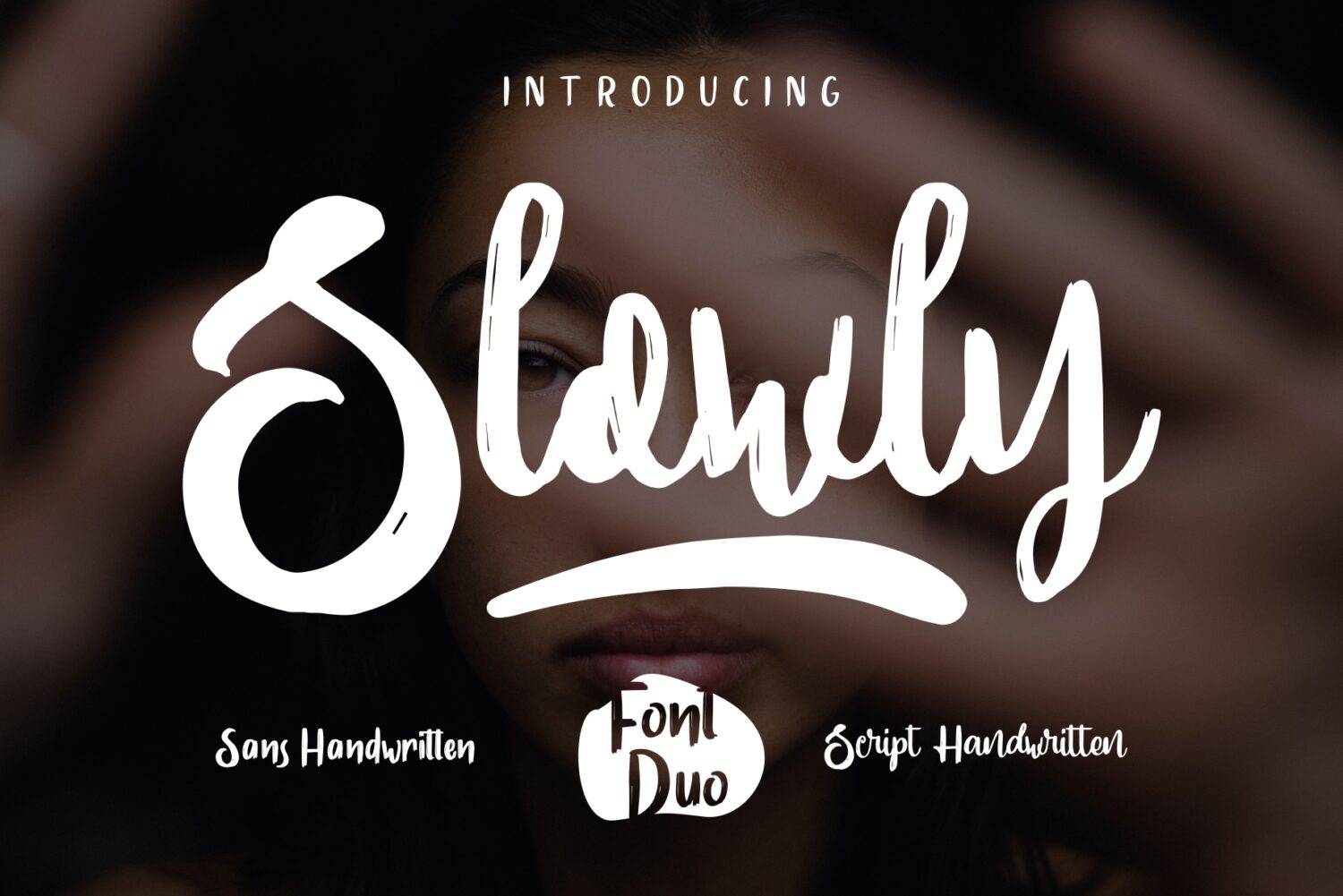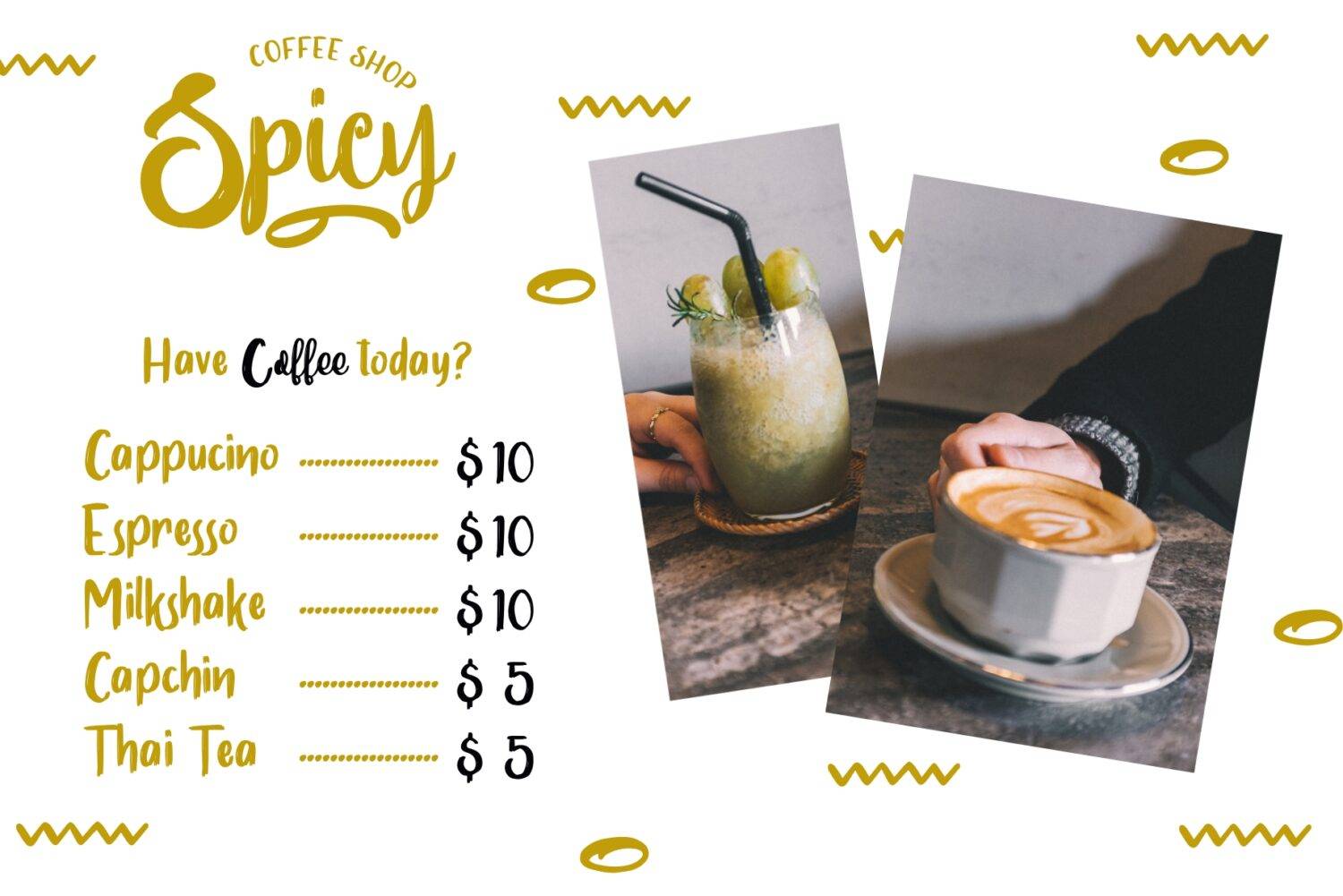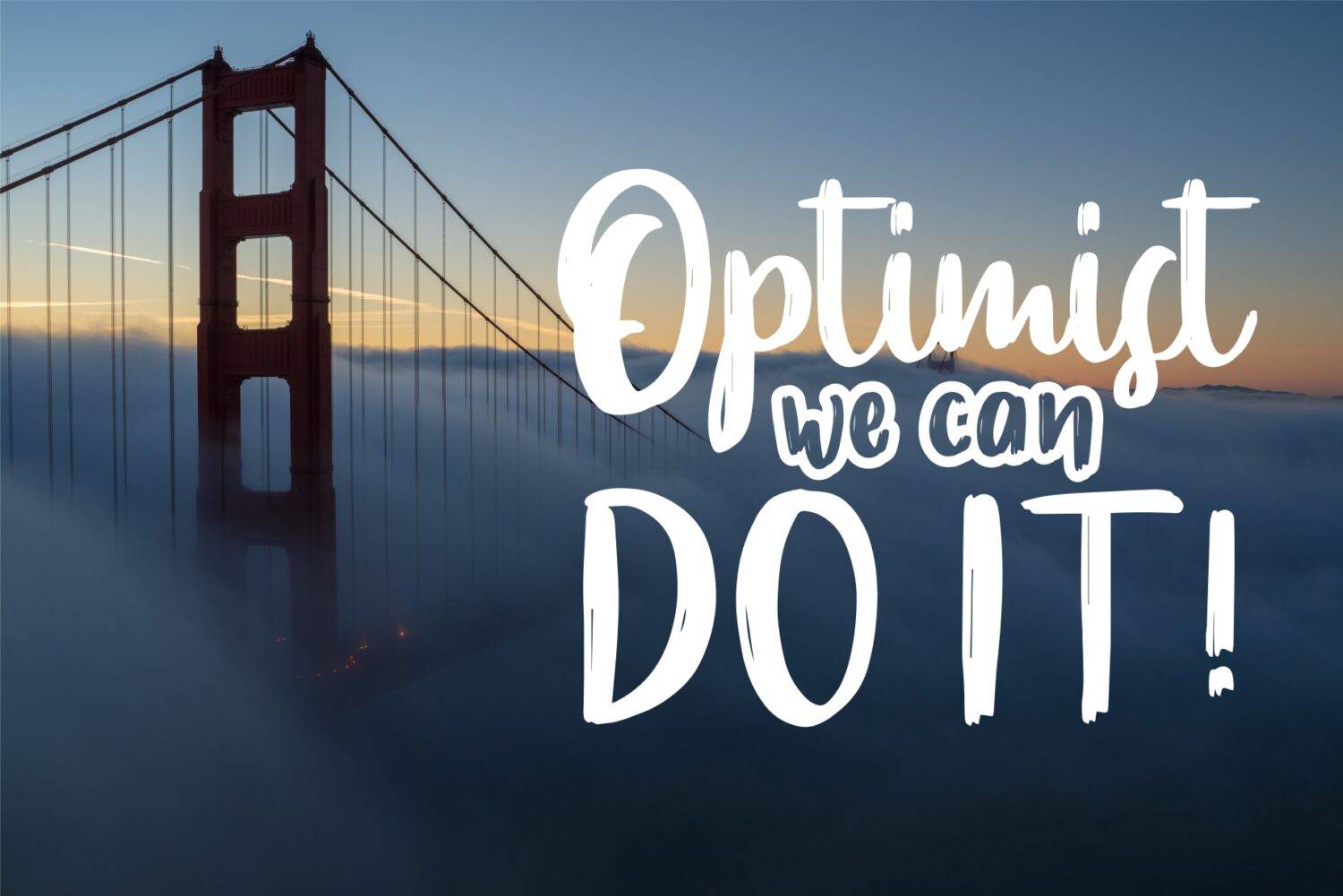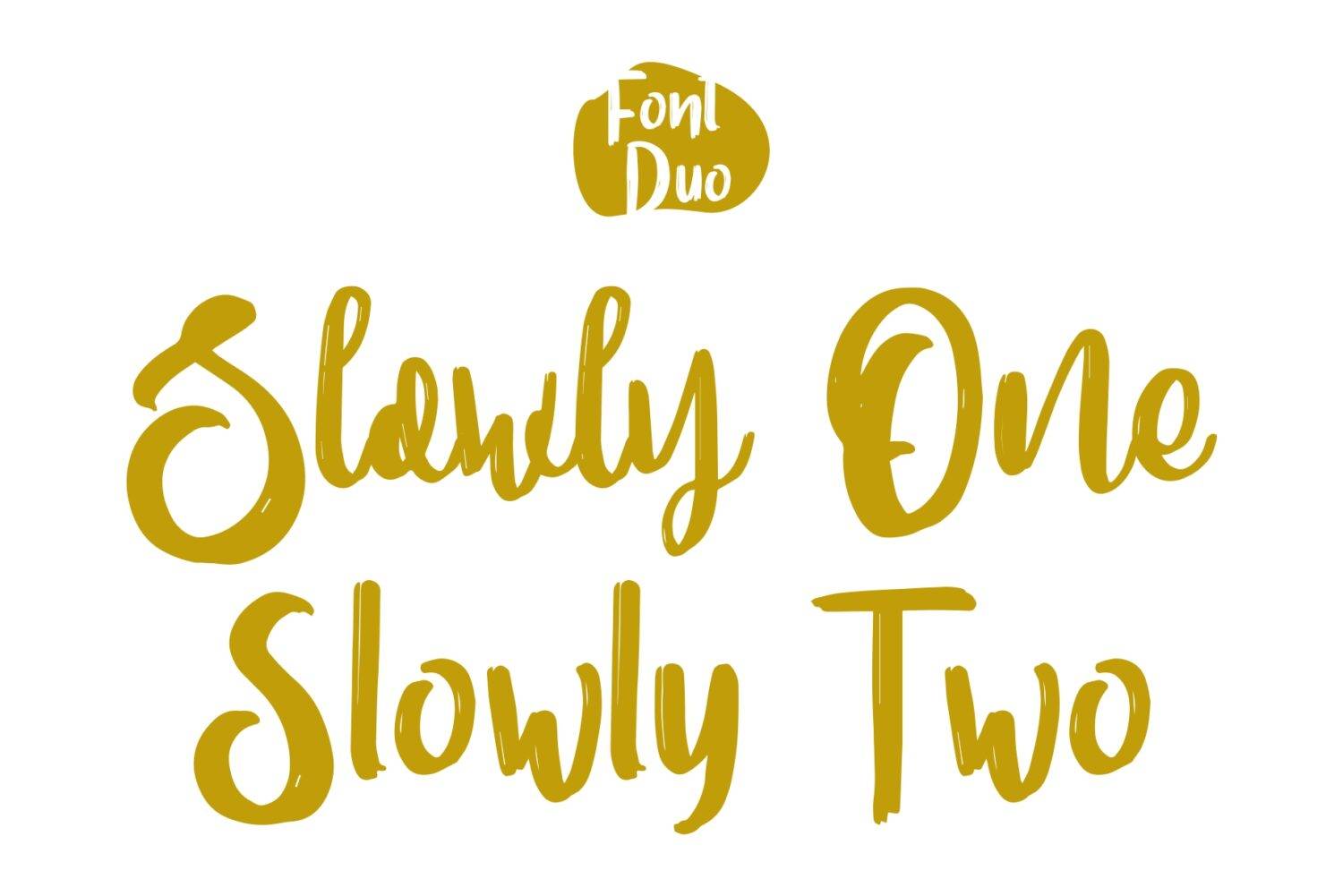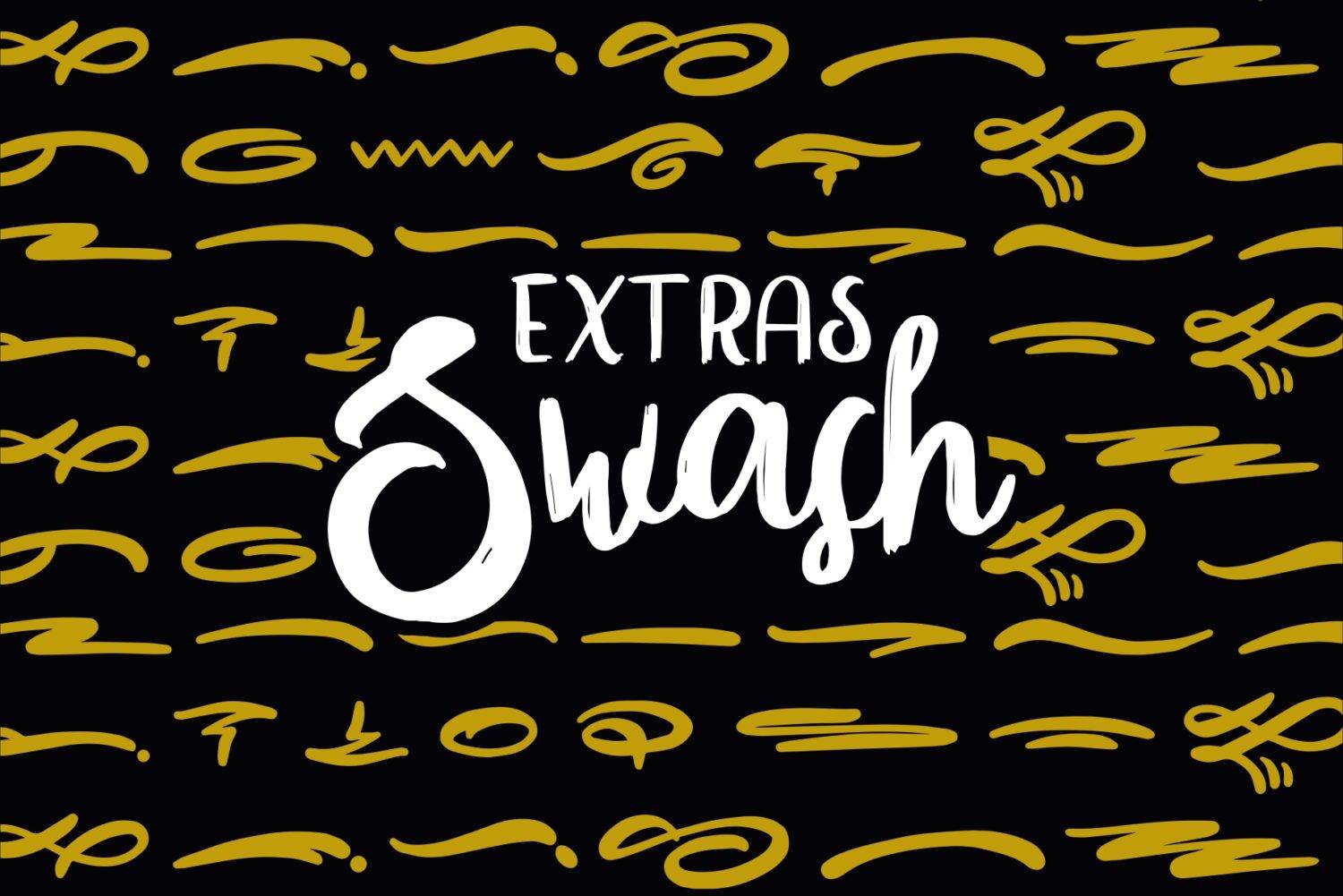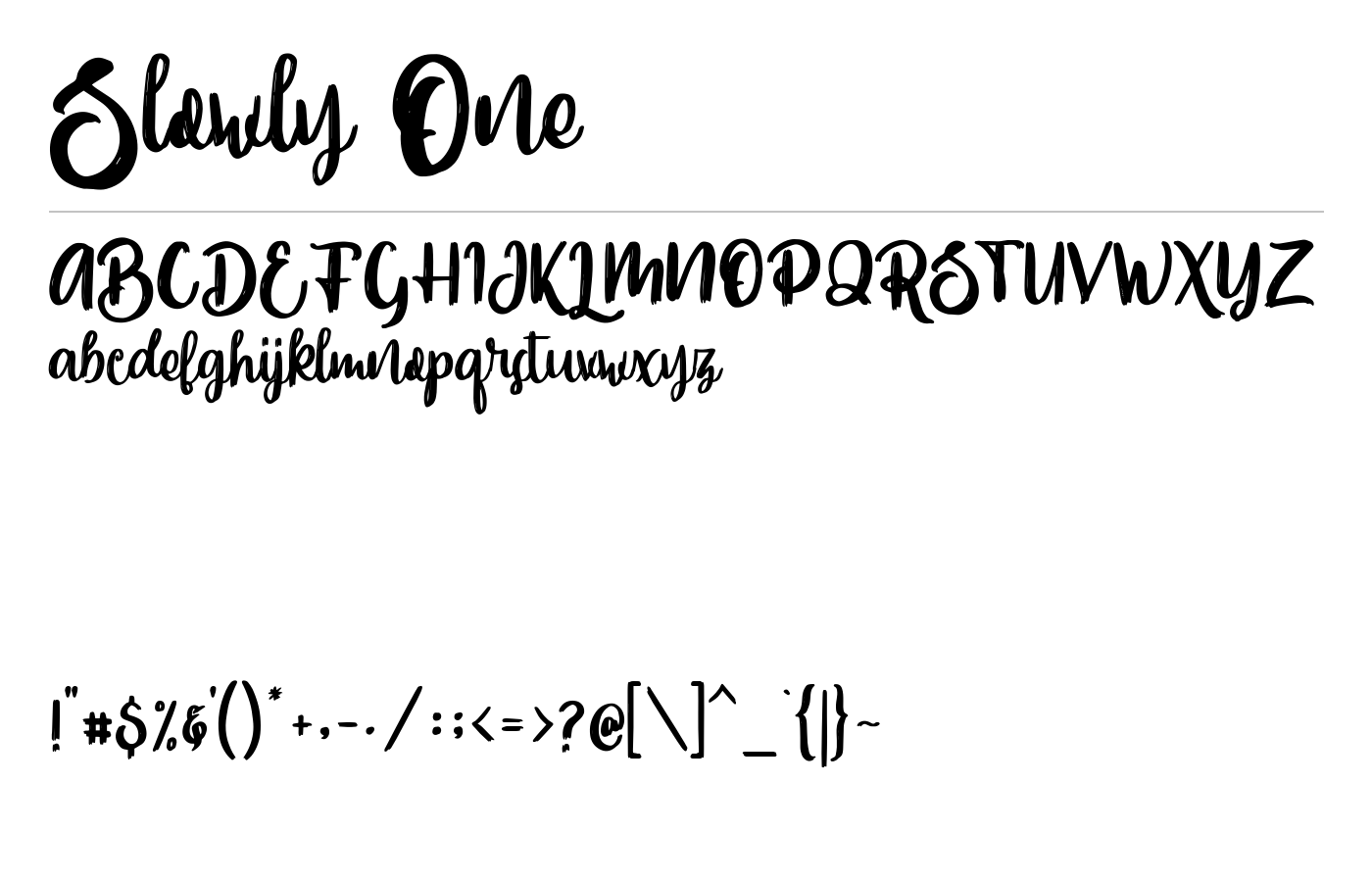
Slowly is a lively script font with bold, brush-like strokes that create a playful and informal look. Its tall, narrow letterforms with varied stroke thickness give it a hand-painted feel, making it perfect for creative branding, casual headlines, and packaging that aims to convey warmth and personality. This font works best where an expressive, artistic touch is desired to capture attention and add a friendly, dynamic vibe.
Slowly Font
About Slowly Font